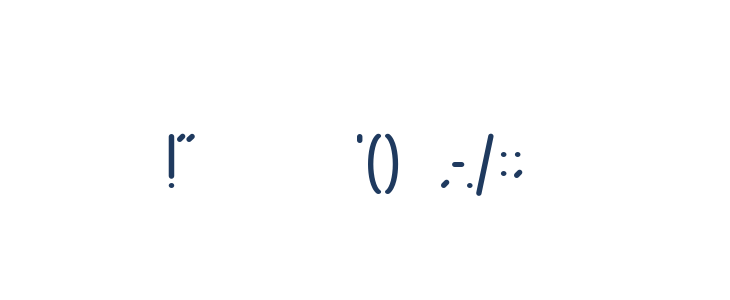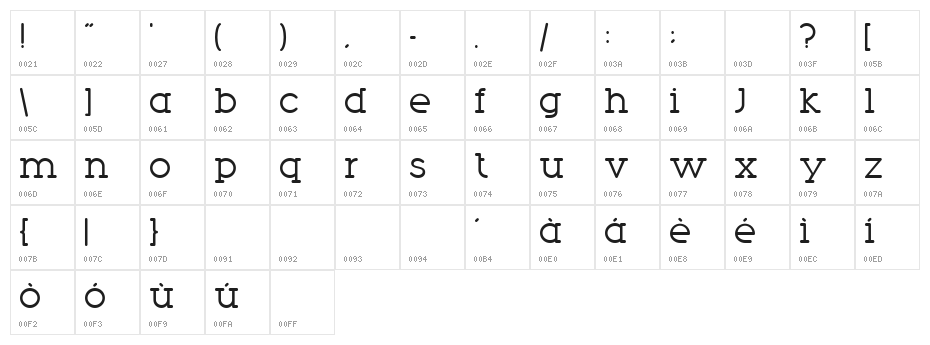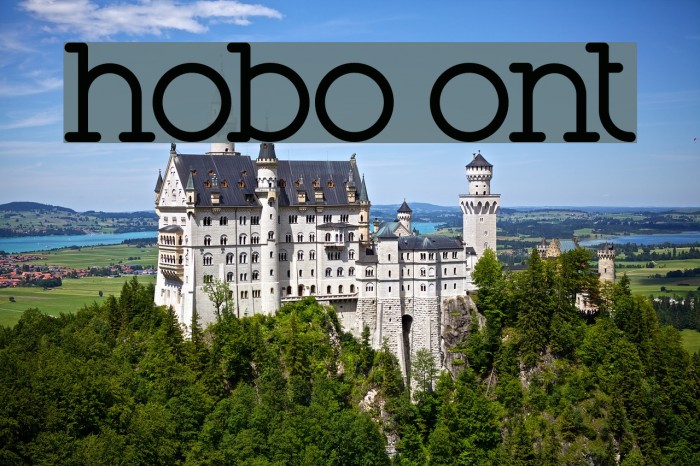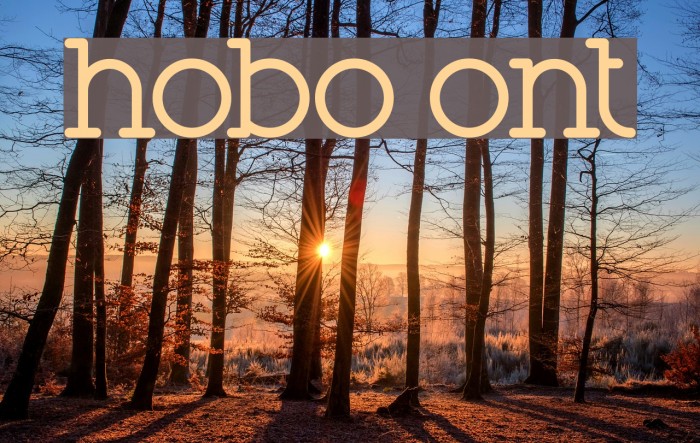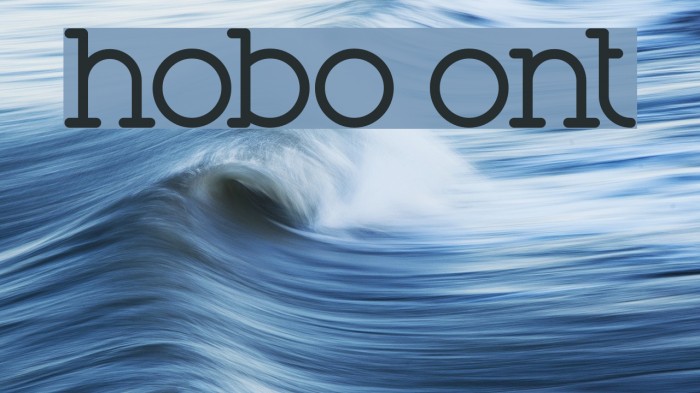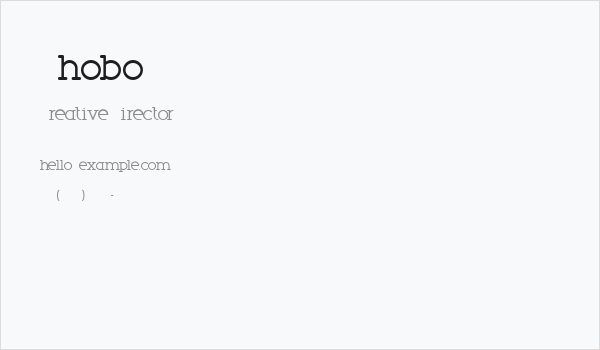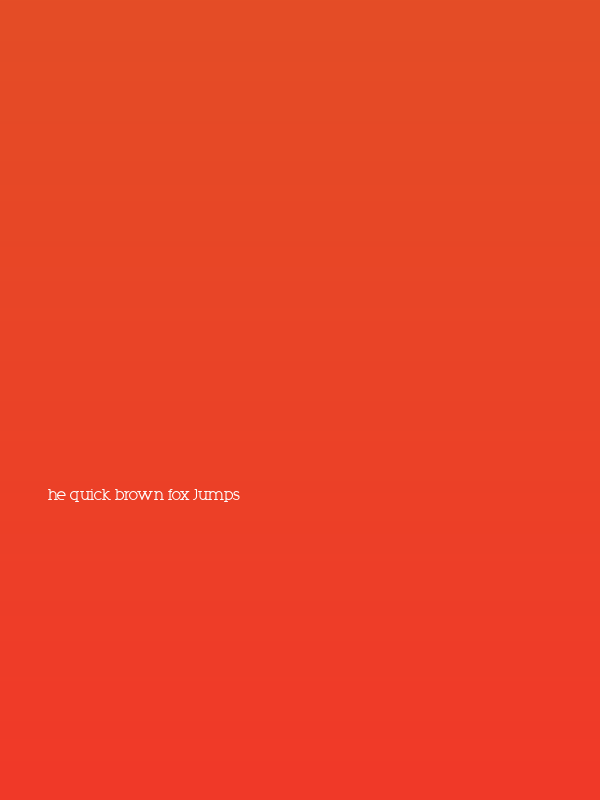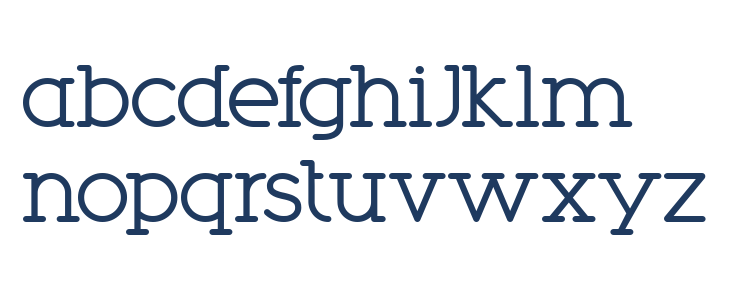
Phobo Font
Phobo Description
This font features a clean, rounded design with a modern aesthetic. The characters are evenly spaced, with a consistent stroke width that gives it a balanced appearance. The rounded edges and smooth curves provide a friendly and approachable feel, making it suitable for a variety of applications. The lowercase letters maintain a uniform height, while the uppercase letters stand out with slightly taller proportions. The punctuation marks are simple and unobtrusive, complementing the overall style. This font's clarity and readability make it ideal for both digital and print media.